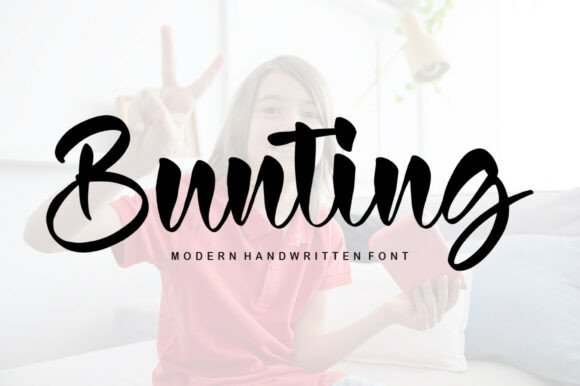
The Bunting Font: A Delicate, Elegant, and Flowing Handwritten Font
I still remember the design project that led me to discover the Bunting font. I was working on a branding project for a luxury wedding planner, and I needed a font that would convey elegance, sophistication, and a touch of whimsy. After hours of searching through font libraries and testing out different options, I stumbled upon Bunting. Its delicate, flowing script immediately caught my eye, and I knew I had found the perfect fit.
An Honest Review of Bunting
So, what makes Bunting so special? Here are a few things I love about this beautiful font:
• ✨ Delicate and elegant: Bunting’s flowing script is perfect for designs that require a touch of sophistication.
• ✅ Well-balanced characters: The font’s characters are beautifully balanced, making it easy to read and use in a variety of designs.
• 💫 Versatile: Bunting matches a wide pool of designs, from wedding invitations to luxury branding.
Of course, no font is perfect, and Bunting has a few small quirks:
• 🤔 Limited use of bold weights: While Bunting has a range of weights, the bold weights can be a bit overpowering. Use them sparingly to add emphasis.
• ⚠️ Some letter combinations may not flow as smoothly: As with any script font, some letter combinations may not flow as smoothly as others. Take the time to adjust the kerning and tracking to ensure a smooth flow.
The Story Behind Bunting
Bunting was designed by a talented type designer who wanted to create a font that would evoke the feeling of elegance and sophistication. The designer’s inspiration came from traditional calligraphy and handwriting, with a focus on creating a font that would be both beautiful and functional.
Author Daily Design
What is Bunting font? Bunting is a delicate, elegant, and flowing handwritten font.
What is Bunting font used for? Bunting is perfect for designs that require a touch of elegance and sophistication, such as wedding invitations, luxury branding, and high-end marketing materials.
Is Bunting a script font? Yes, Bunting is a script font with a flowing, cursive feel.